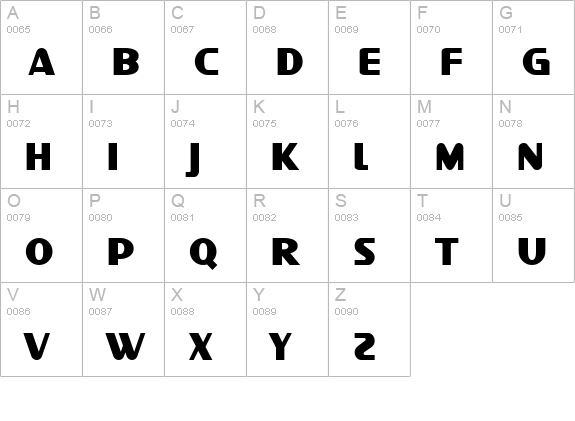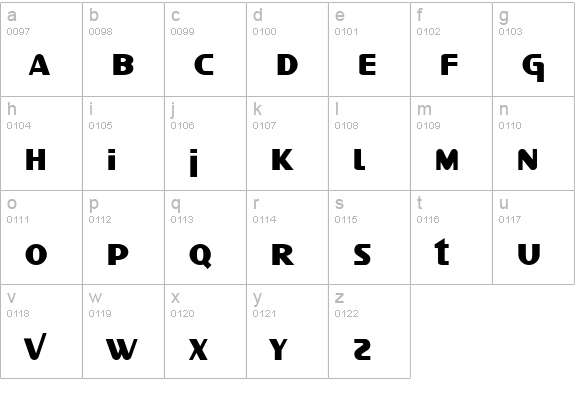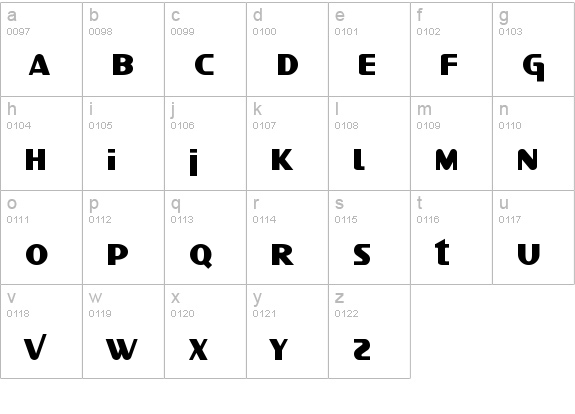
SF Intellivised font is a modern and sleek typeface that will bring a touch of sophistication to any design project. With its clean lines and futuristic aesthetic, this font is perfect for creating eye-catching headings, logos, and branding materials. The bold and geometric letterforms make a strong impact, while the soft curves add a touch of elegance. One of the most exciting features of SF Intellivised font is that it is available for free download at FontsMarket.com. This means that you can easily access this incredible font without having to spend a dime. Whether you are a professional designer or a hobbyist, this free font will undoubtedly enhance your creative projects. With SF Intellivised, you can effortlessly create striking designs that will captivate your audience. The font's versatility allows it to be used in a variety of contexts, from advertising and packaging to websites and social media graphics. Its legibility and unique personality will ensure that your message stands out from the crowd. Crafted with precision and attention to detail, SF Intellivised font is a true testament to the power of typography. Its carefully considered proportions and well-balanced letterforms make it a pleasure to work with. The font's consistent and even spacing ensures that your text looks polished and professional. So why wait? Take advantage of the opportunity to download SF Intellivised font for free at FontsMarket.com and elevate your design projects to new heights. With this font, you have the freedom to create visually stunning and impactful designs that will leave a lasting impression. Embrace the power of SF Intellivised and let your creativity soar.